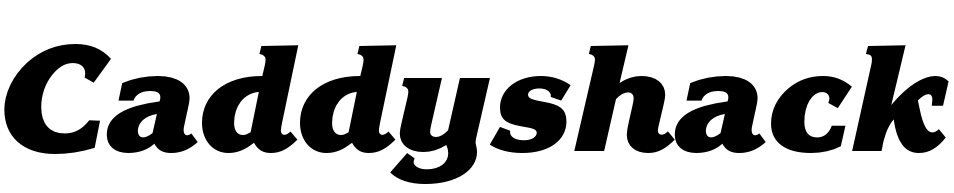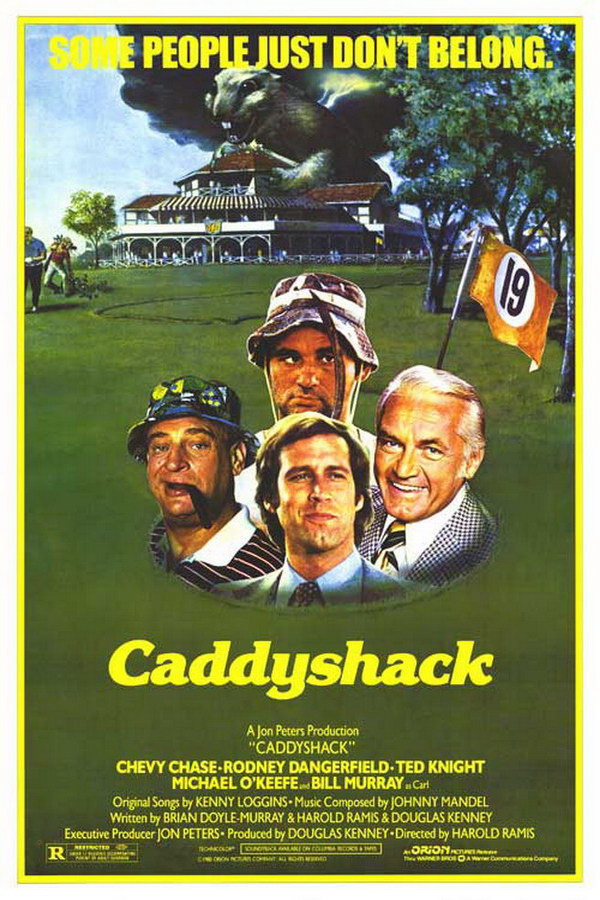
Caddyshack Font
ComedyCaddyshack is a classic 1980 comedy film set at an exclusive golf club, featuring hilarious encounters between eccentric characters, outrageous gags, and a showdown with a mischievous gopher.
The movie poster for "Caddyshack" likely features the ITC Korinna Kursiv Heavy font, a German serif typeface initially created by H. Berthold AG in 1904. It was later redesigned by Ed Benguiat and Vic Caruso for ITC in 1974. More information on the font is available here.